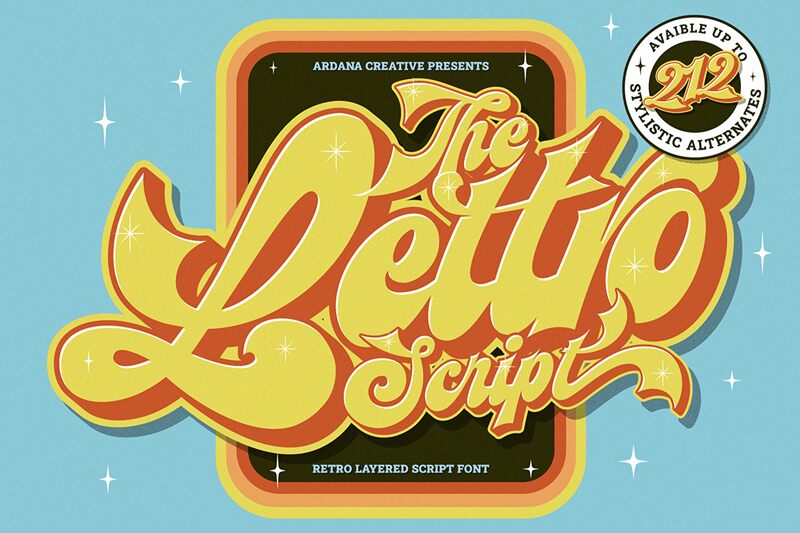
Lettro
Lettro font, crafted by Ferry Ardana Putra, is a bold script font with classic style roots. Its curved and loopy shapes give it a natural expressive form which stands out elegantly in every context. In addition to the retro influence and flowing movements, this font adopts a modern overall appearance making it suitable for various purposes.
Use Lettro in logotypes, signage designs, badges, labels, book covers and titles. It is also cool in artwork posters and websites that need highlighted phrases or paragraphs to attract more attention. Furthermore this free brush font fits package design projects as well as fashion branding ones.